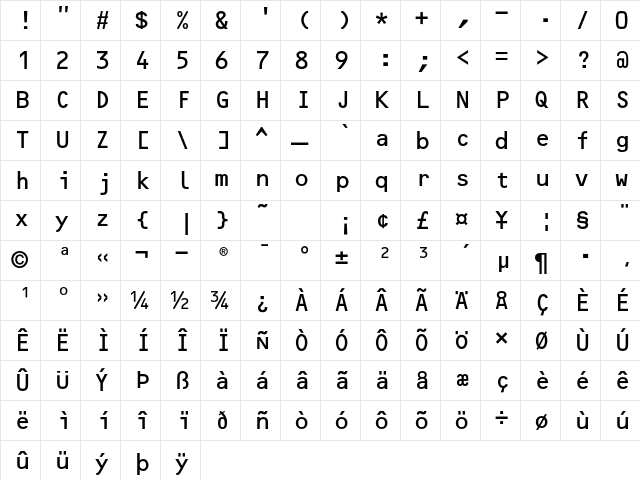
OCR B Std Medium
| Designer | Adrian Frutiger |
Design Context for OCR B Std Typeface
OCR B Std is a composed and adaptable typeface that performs quietly and consistently across a wide range of design contexts.